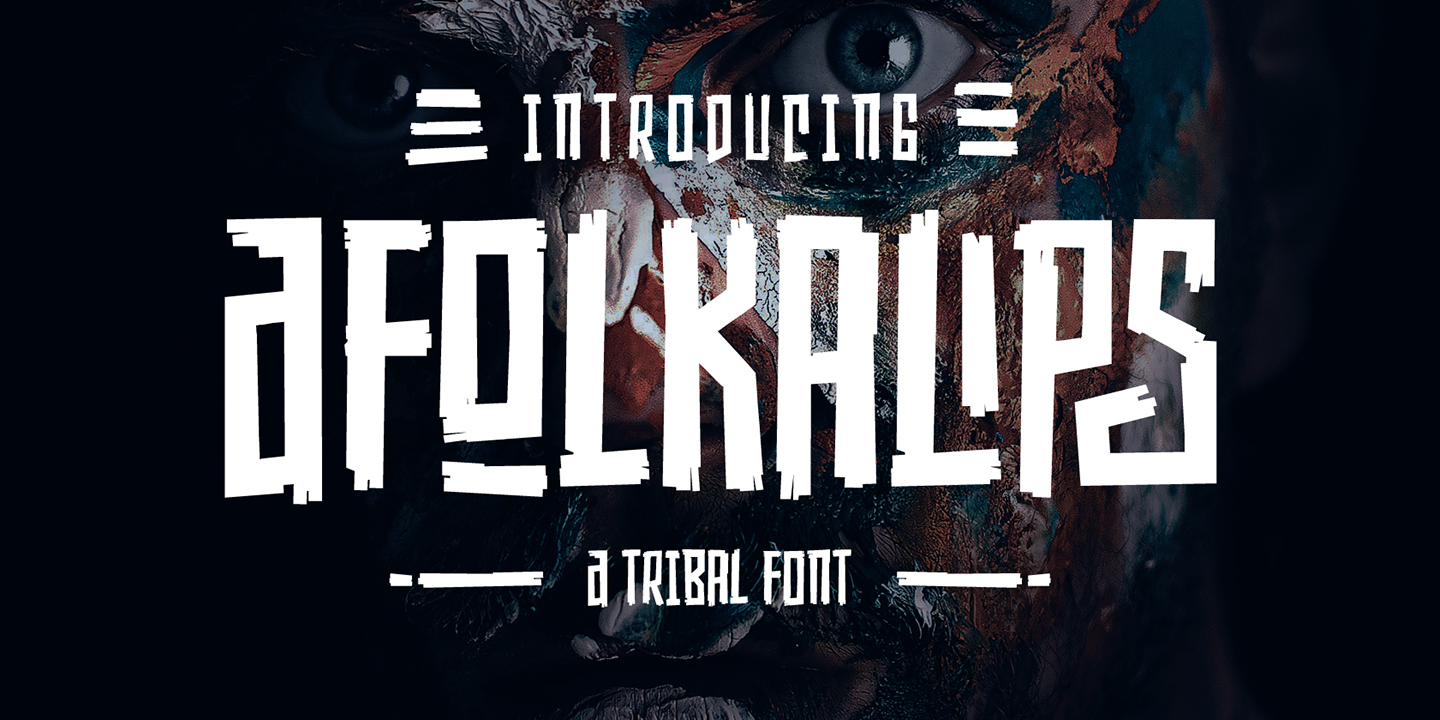
Afolkalips Font Free Download is a bold and artistic display typeface inspired by tribal art and cultural motifs. Its intricate and hand-drawn style makes it an excellent choice for branding, posters, album covers, event promotions, and creative projects that require a vibrant, organic, and culturally rich aesthetic.
The font’s detailed and expressive letterforms ensure strong visual impact while maintaining good readability, especially at larger sizes. Afolkalips brings a sense of tradition, creativity, and energy to any design, making it perfect for projects that aim to celebrate diversity and artistic expression.
Afolkalips is a powerful addition to any designer’s collection, offering a bold and culturally inspired option that enhances the creativity and authenticity of visual projects.